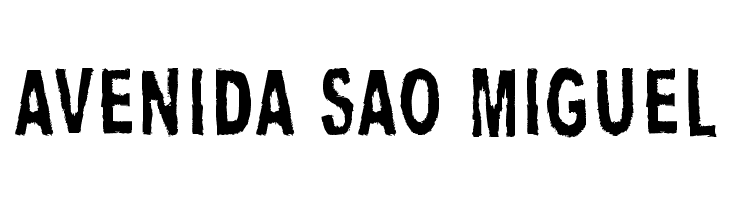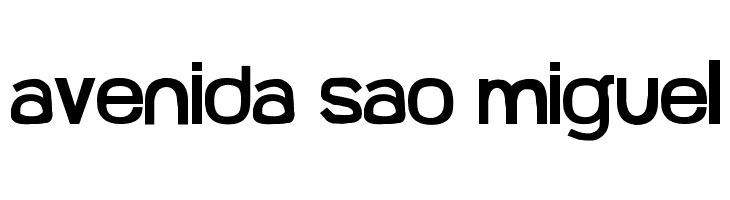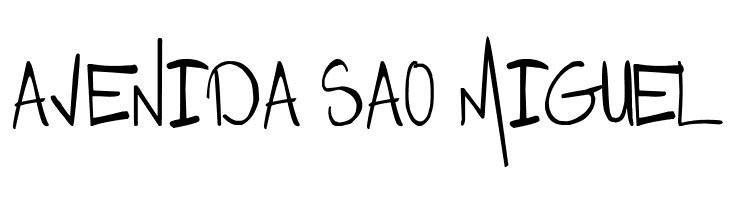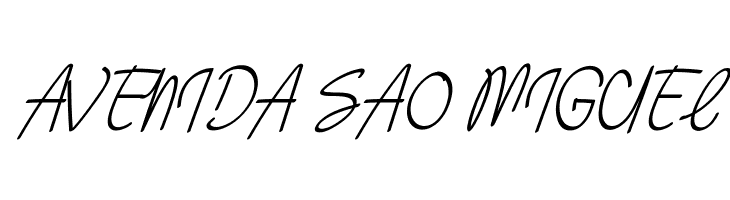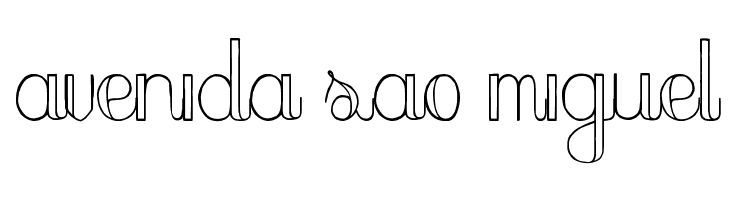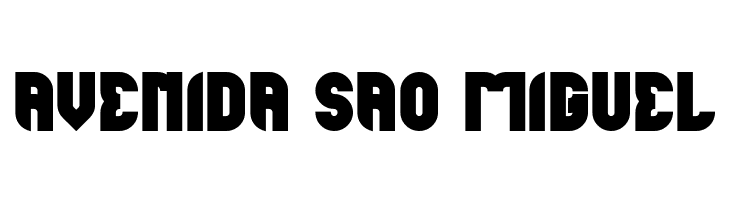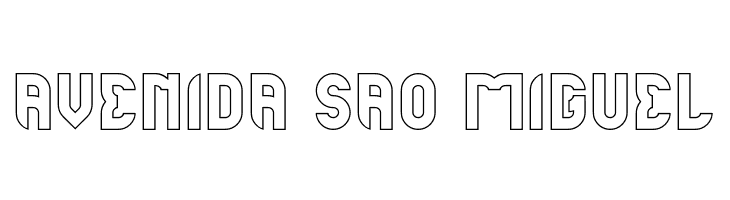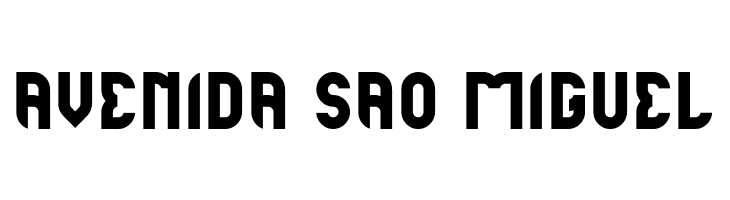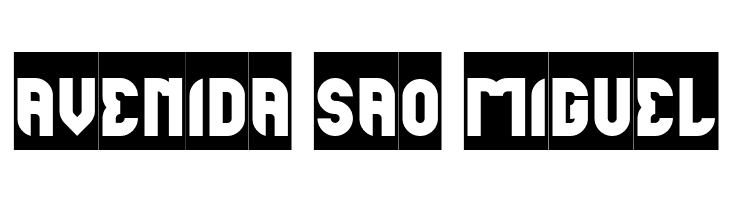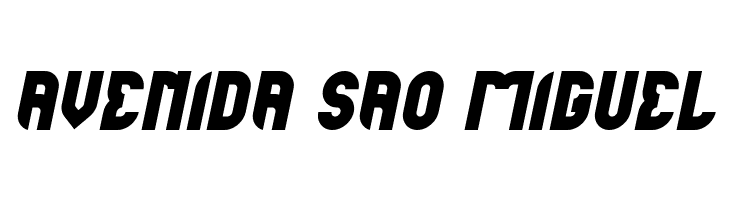
A playful, casual handwritten font with fluid, connected letterforms.
A bold, handwritten font with a casual and energetic style.
A modern, geometric font with a futuristic and tech-inspired design.
A geometric, angular font with a modern, futuristic style.
A bold, geometric font with sharp, angular lines and a modern aesthetic.
A modern, italic font with sharp, angular lines and a geometric style.
A geometric, hollow font with angular and bold outlines.
A geometric, linear font with thin, angular strokes and a minimalist design.
A bold, textured font with a hand-drawn, vintage look.
A bold, angular font with a distressed, deformed style.
An artistic, angular font with a gothic flair, perfect for dramatic designs.
A bold, geometric font ideal for impactful headlines and logos.
A bold, geometric font with strong, block-like letterforms.
Bold, italic font with angular cuts and a dynamic style.
A bold, geometric hollow font with a modern and futuristic style.
A bold, hollow, and geometric font with a modern, futuristic style.
A bold, geometric font with an inverse style and sharp angles.
A bold, geometric font with a futuristic and modern design.
A playful, matchstick-themed decorative font ideal for creative projects.
A bold, distressed font with a vintage, rugged texture.
A bold, three-dimensional font with a modern, geometric style.
A playful, hand-drawn font with thin, elongated characters.
A bold, graffiti-inspired font with dynamic, interconnected strokes.
A playful, hand-drawn font with irregular strokes and whimsical details.
A hand-drawn, brush-style font with irregular edges and dynamic strokes.
A bold, angular font with a futuristic and geometric style.
A bold, italicized font with sharp, angular lines and a futuristic style.
An elegant, flowing script font with a handwritten appearance.
Silhouette-based font featuring photographers in action.